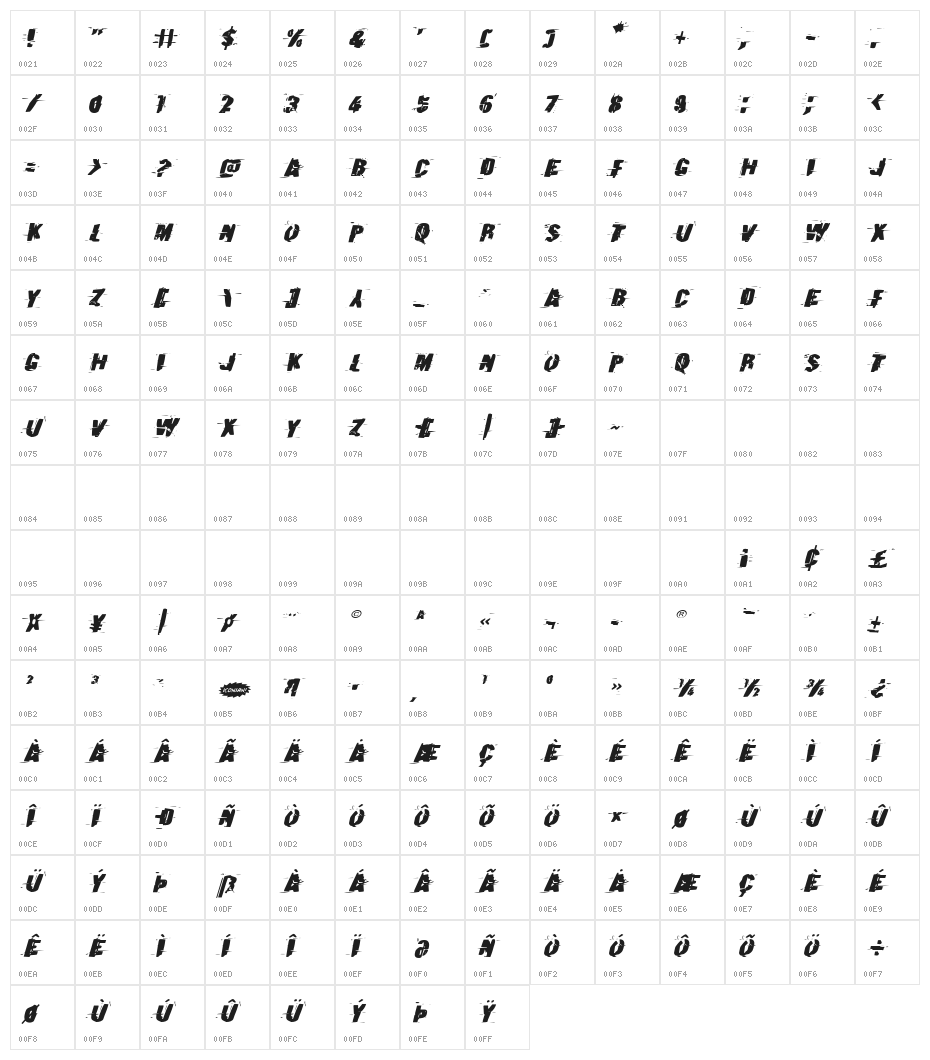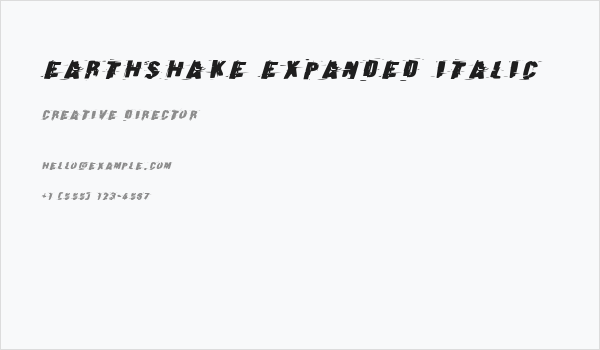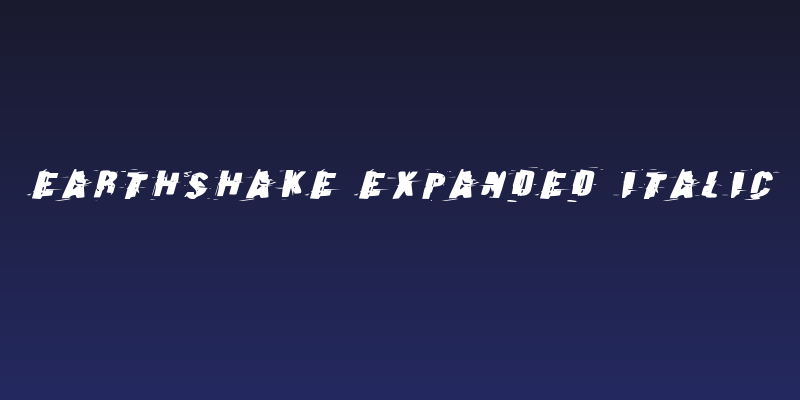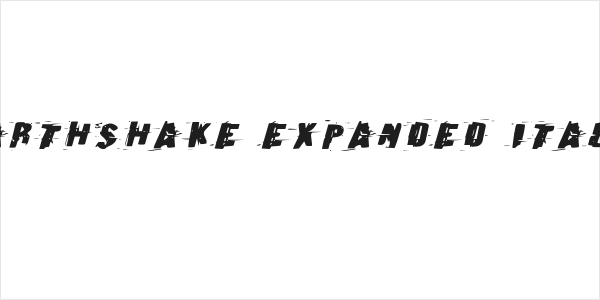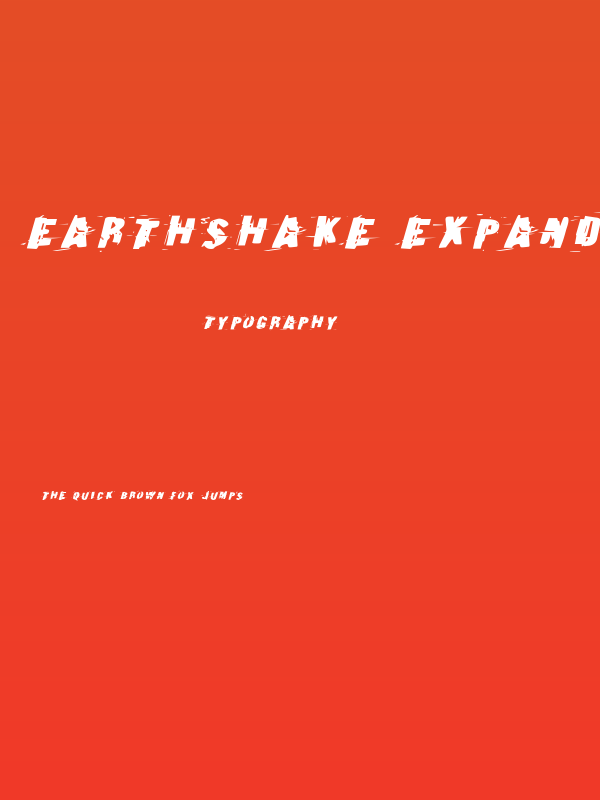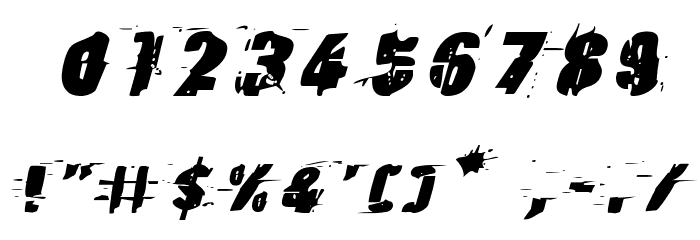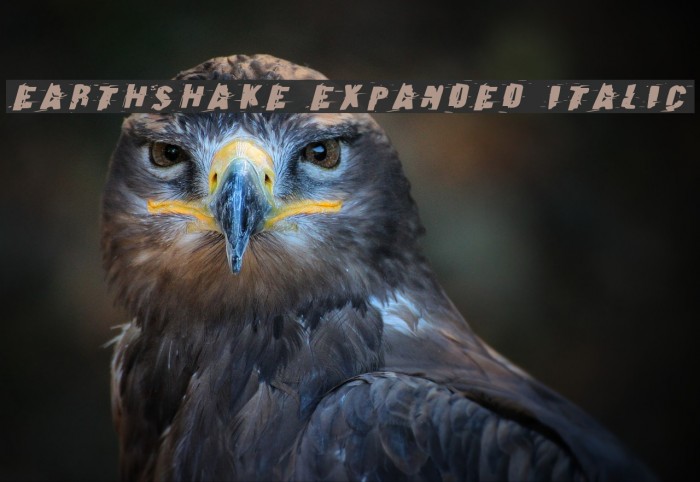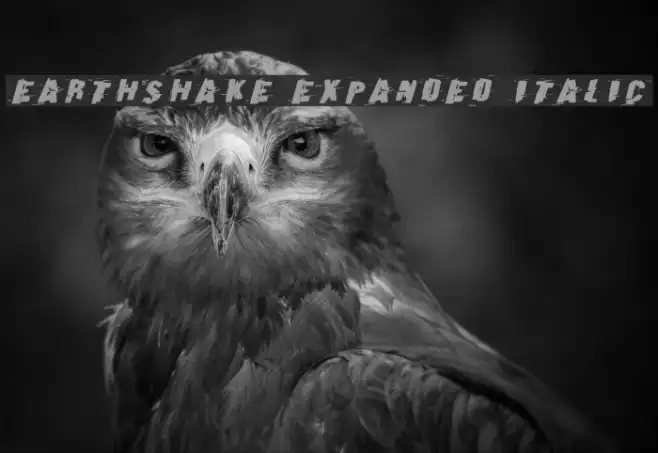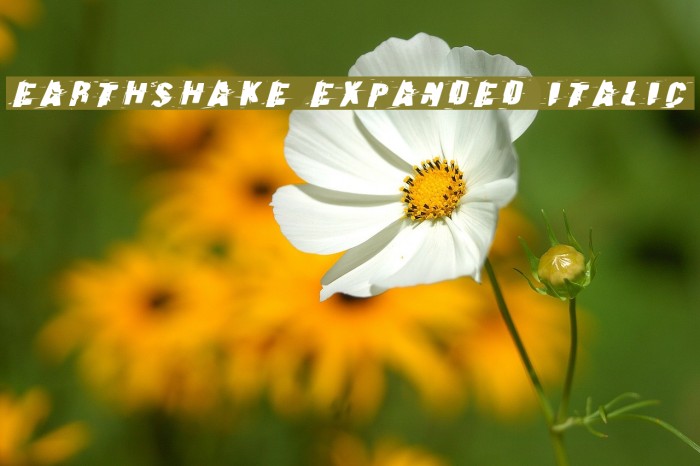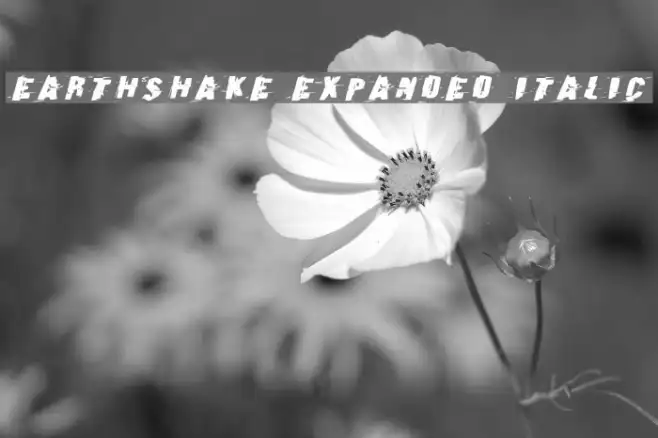
Earthshake Expanded Italic Font
Earthshake Expanded Italic Description
This font features a bold and dynamic style with an italic slant, giving it a sense of motion and energy. The characters are heavily distressed, with rough edges and irregular shapes that create a chaotic and impactful appearance. The expanded width of the letters adds to the boldness, making it ideal for attention-grabbing designs. The font's unique texture and style make it suitable for projects that require a strong visual impact, such as posters, album covers, or branding for edgy and modern products.
| Proposed Projects | Ideal for posters, album covers, edgy branding, and modern product designs. |